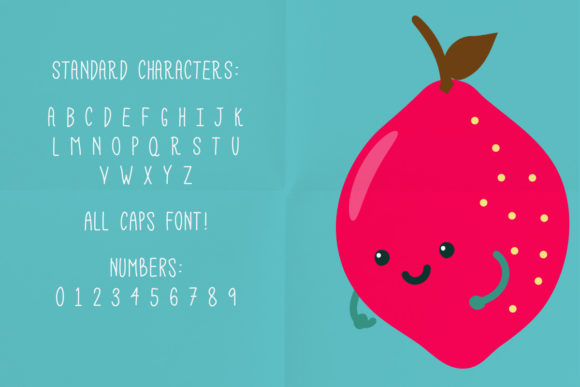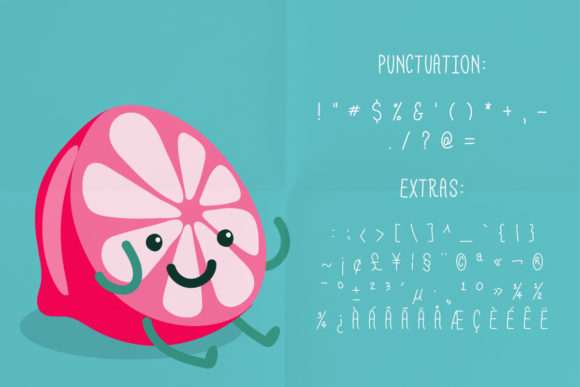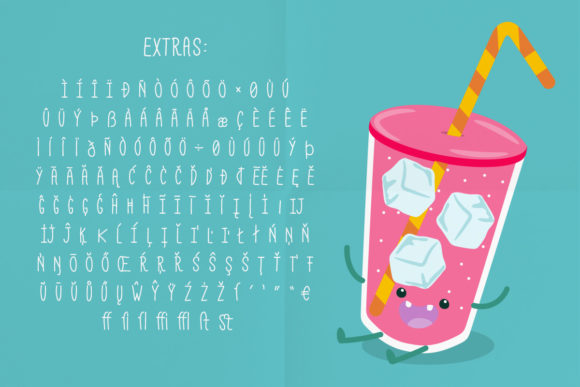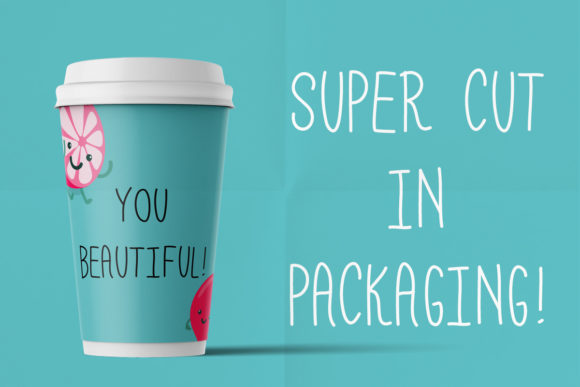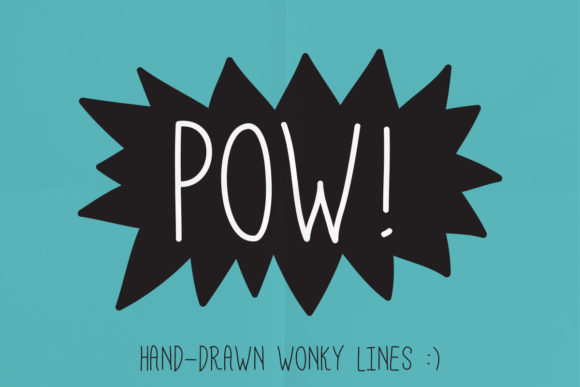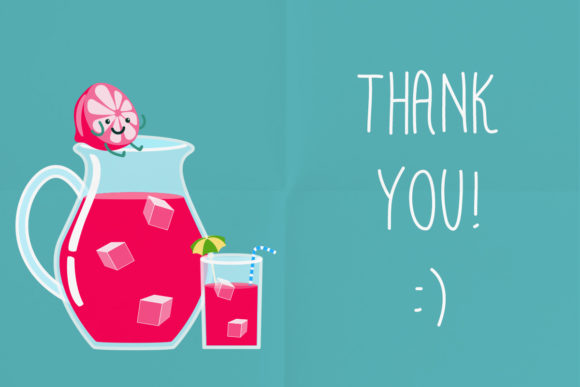
Pink Lemonade Font
About Pink Lemonade Font
Pink Lemonade is a cute and effortless handwritten font. Get creative with its playfulness, and use it to brighten up all your upcoming crafting projects!